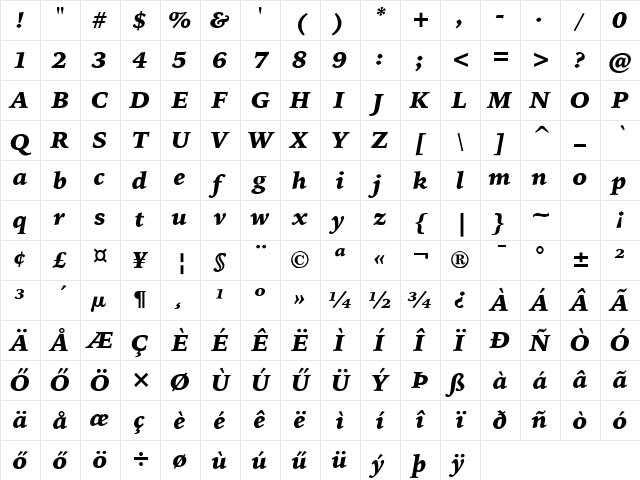
IowanOldSt Blk HU Italic
Design Context for IowanOldSt Blk HU
IowanOldSt Blk HU is a composed and adaptable typeface that performs quietly and consistently across a wide range of design contexts. The slanted form adds forward momentum and visual energy.
Pro Tip: Use IowanOldSt Blk HU for emphasis, pull quotes, and subheadings where its slanted energy can add rhythm to the layout.